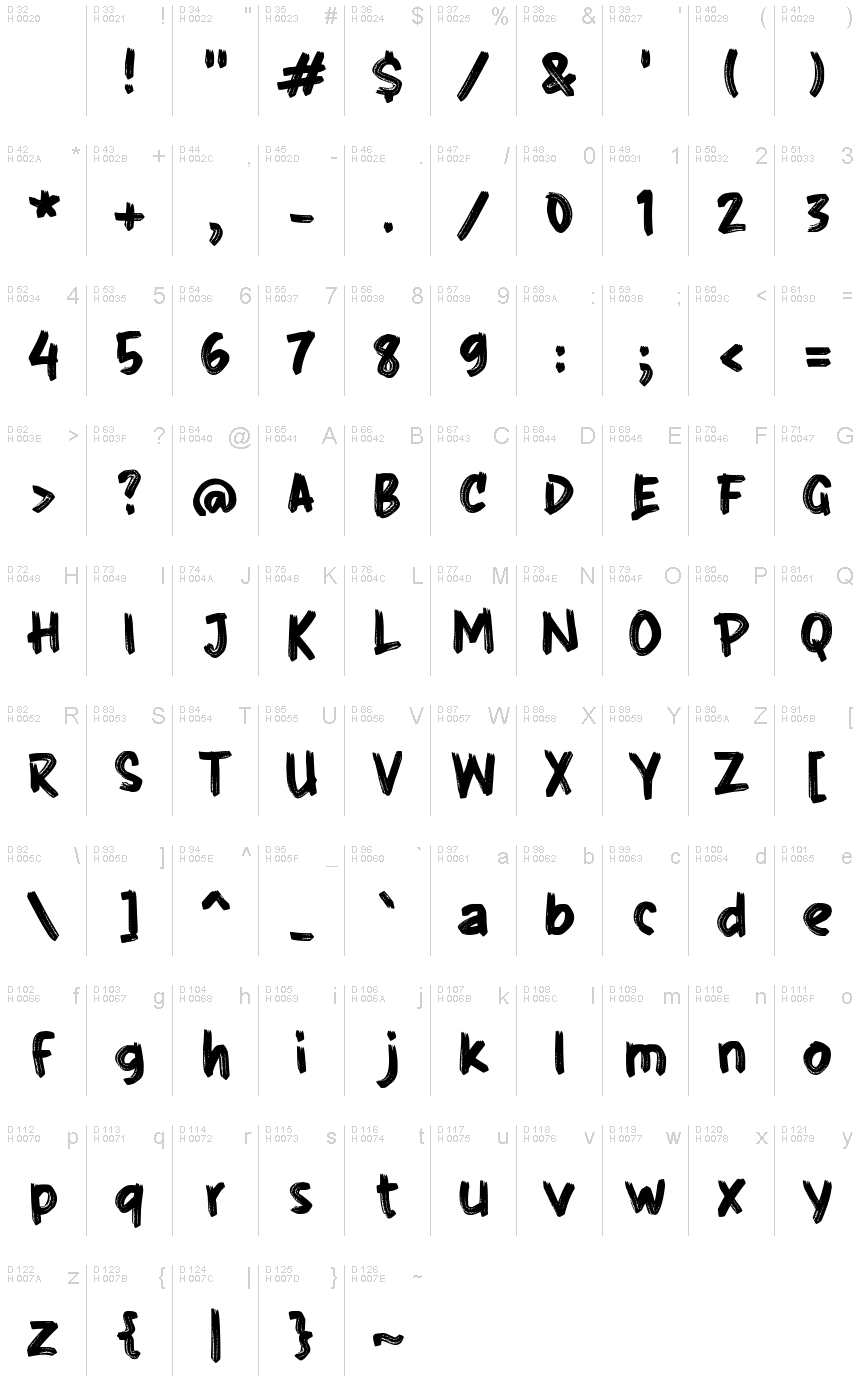
GAREZ
Garez by wep is a striking brush font that exudes boldness and creativity. With its rugged, hand-painted texture, Garez captures a raw, artistic energy that brings designs to life. The thick strokes and vivid character forms combine to evoke a dynamic sense of movement and expression.
This bold font stands out in both print and digital mediums, making it ideal for logos, posters, and branding projects where impact is paramount. Garez’s unique style complements edgy fashion labels, vibrant event promotions, or any context requiring an eye-catching headline with personality and flair.
Infuse your designs with the bold artistry of Garez, perfect for making unforgettable visual statements.